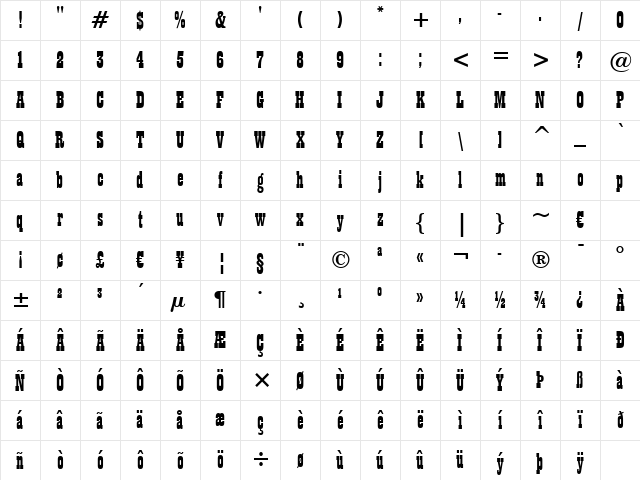
Playbill BT Regular
Playbill BT Family
Playbill BT Regular
Design Context for Playbill BT
Playbill BT is a composed and adaptable typeface that performs quietly and consistently across a wide range of design contexts.
Pro Tip: Use Playbill BT in both headline and body roles to test its range before committing to a single application.